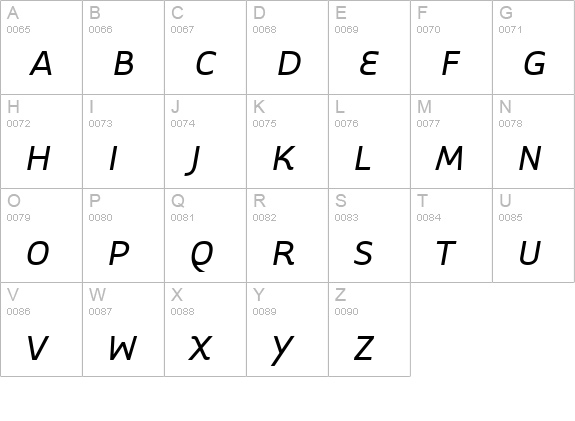
TarzanaWide Italic Font Details
TarzanaWide Italic is a distinctive, italic variant in the TarzanaWide typeface family \xE2\x80\x94 well suited to design and typography projects.
TarzanaWide Italic font is a stylish and versatile typeface that exudes elegance and sophistication. Its unique design features elongated letterforms with sleek curves, giving it an air of modernity and sophistication. The italicized slant adds a touch of dynamism and movement, making it perfect for projects that require a sense of energy and flair. This font is not only visually appealing but also highly readable, making it suitable for a wide range of design applications. Whether you're creating logos, headlines, posters, or even website designs, TarzanaWide Italic font will effortlessly elevate your projects to new heights. One of the best things about TarzanaWide Italic font is that it is freely available to download at FontsMarket.com. This means that designers and creatives can easily access and use this font without any cost, making it an invaluable resource for those on a tight budget or looking to try out new typefaces. The versatility of TarzanaWide Italic font is further enhanced by its extensive character set, including uppercase and lowercase letters, numerals, punctuation marks, and special characters. This ensures that you have all the tools you need to bring your creative visions to life. Whether you're a professional designer or a hobbyist, TarzanaWide Italic font is a must-have addition to your font library. Its modern and sleek aesthetic, combined with its easy availability and extensive character set, make it a go-to choice for any design project. So why wait? Download TarzanaWide Italic font today and unlock a world of possibilities for your next creative endeavor.